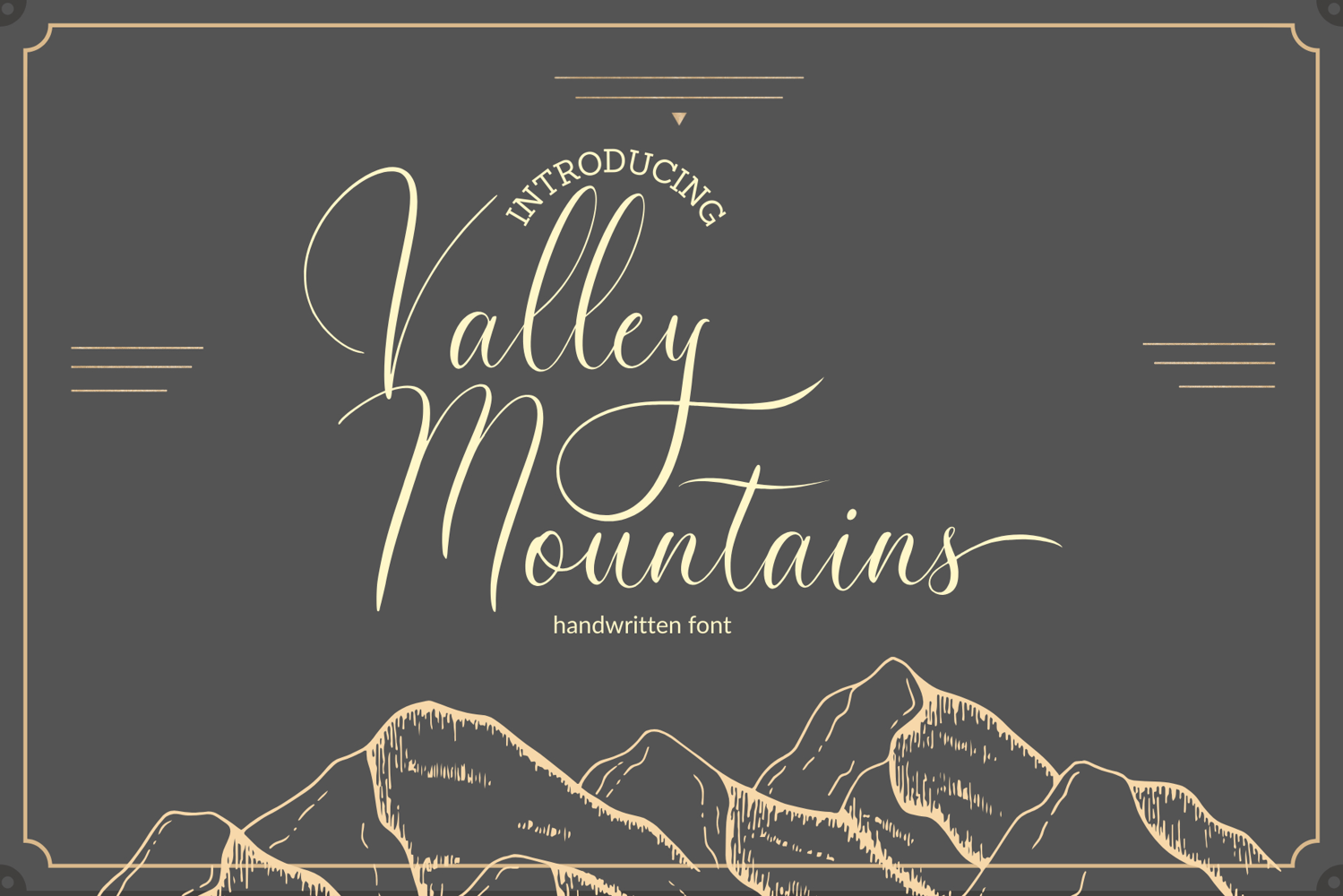
Valley Mountains
"Valley Mountains" is a beautifully crafted script font that blends the elegance of traditional calligraphy with a natural, organic feel. Inspired by the flowing curves and varied landscapes of nature, this font features smooth, sweeping lines that evoke a sense of serenity and sophistication. With its carefully designed alternates and ligatures, "Valley Mountains" offers a unique versatility, perfect for adding a individual, handcrafted touch to any project. Ideal for wedding invitations, branding, logo design, and more, it brings a sense of timeless charm with a modern twist, capturing both the beauty of nature and the artistry of classic lettering.